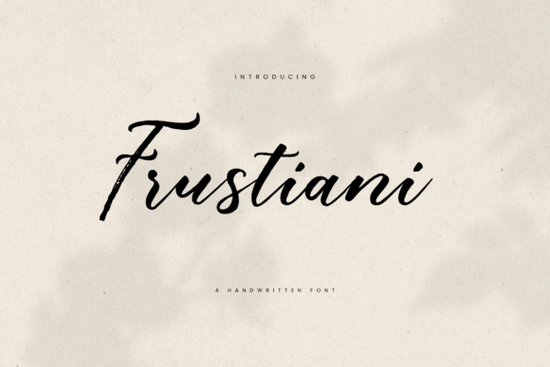
Frustiani Font is a versatile and elegant script that brings a touch of sophistication to any design project. Whether you're creating wedding invitations, greeting cards, or branding materials, this font adds a soft, flowing style that feels personal and artistic. Its smooth curves and classic accents make it ideal for designs that aim to evoke warmth and grace.
If you're looking for a font that can add a feminine or romantic feel to your work, Frustiani is a great choice. It's often used in logo designs, decorative posters, and quotes where a handwritten look is desired. The font’s natural flow makes it easy to read while still maintaining an artistic flair. For those who want to explore similar styles, you might also enjoy Choco Mocha Font, Medasron Font, or Nougat Dreams Font.
One of the standout features of Frustiani is its adaptability. It works well in both digital and print formats, making it a go-to option for designers, crafters, and small businesses. Its elegant appearance can enhance everything from social media posts to product packaging. If you're interested in other fonts with similar characteristics, you might find Almond Deligt Font or Legendaris Font useful for different design needs.
Why choose Frustiani Font?
Frustiani Font stands out because of its unique balance between style and readability. Unlike some script fonts that can be hard to read, this one maintains clarity while still offering a creative edge. It’s especially popular among those who want to add a personal touch without sacrificing professionalism.
For example, if you’re designing a wedding invitation, Frustiani can help create a warm and inviting atmosphere. Its soft lines and flowing structure make it perfect for messages that need to feel heartfelt and sincere. It’s also a good fit for branding projects that want to convey elegance and creativity.
When choosing a font, it’s important to consider how it will look in different contexts. Frustiani works well in both large headings and smaller text, making it a flexible option for a variety of projects. You can use it to highlight key phrases in a design or as the main text for a more artistic layout.
How to use Frustiani Font effectively
To get the most out of Frustiani Font, start by experimenting with different sizes and placements. Since it has a handwritten feel, it may look best when used in moderation. Pairing it with a simpler sans-serif font can help balance the design and improve readability.
Another tip is to pay attention to spacing. Script fonts like Frustiani can sometimes appear cramped if not properly adjusted. Using a little extra space between letters and lines can make the text easier to read while still keeping the elegant look.
If you're new to using script fonts, you might want to look at examples of how others have used Frustiani in their work. This can give you a better sense of how it performs in different settings and help you decide what works best for your project.
Once you’ve downloaded Frustiani, you can start incorporating it into your designs right away. Whether you’re working on a personal project or a client’s request, this font can add a touch of class and creativity to your work.
As you explore different fonts, keep in mind that each one has its own personality. Frustiani is just one of many options available, but it’s a strong choice for anyone looking to add a stylish and elegant touch to their designs.
Tip: Always test a font in different sizes and backgrounds before finalizing your design. This helps ensure it looks good in all situations.